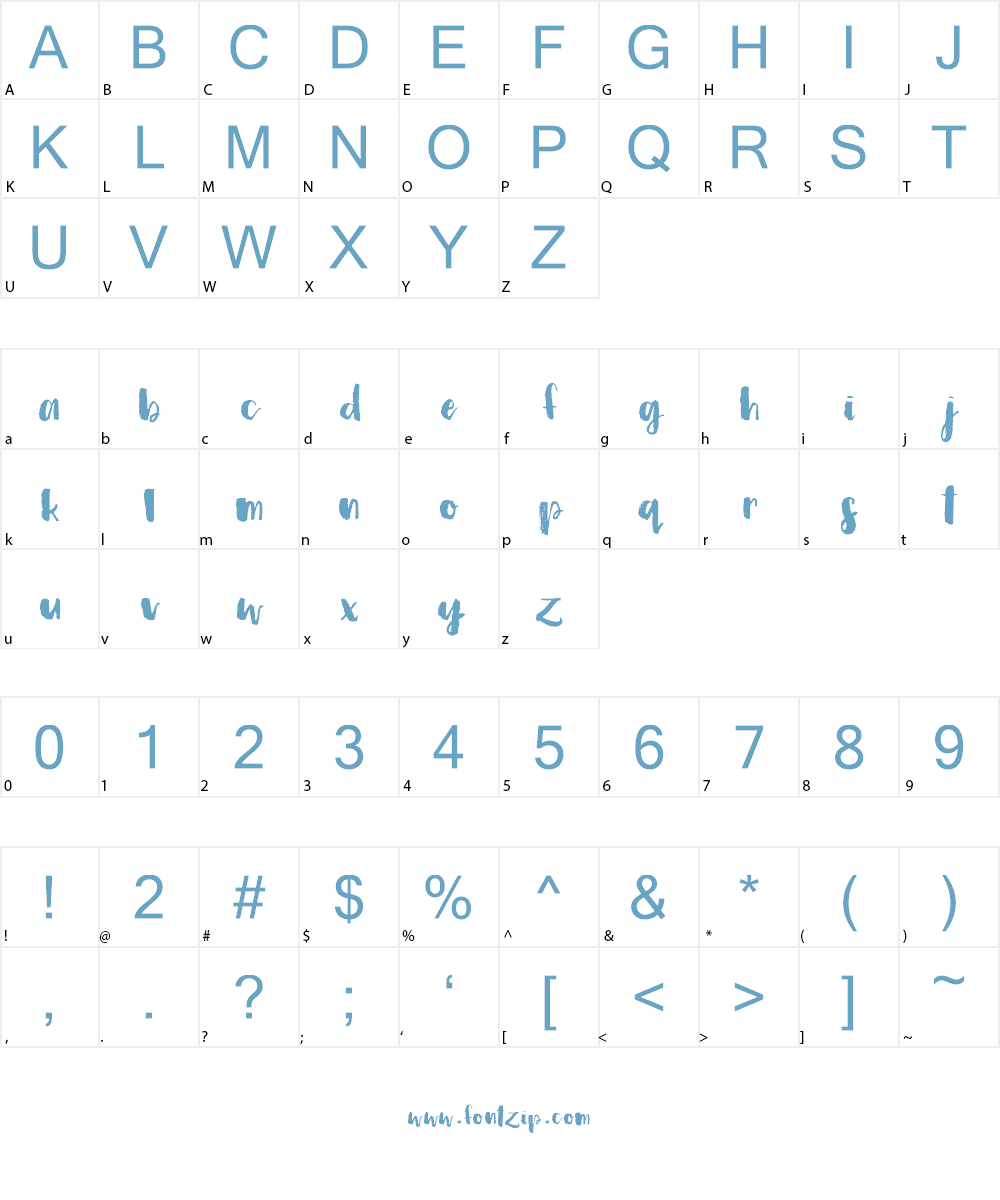
I am proud to offer this free dry brush script font. Originally drawn with a Pentel refillable art brush and carbon black ink.Please enjoy this free dry brush script. Lettered with a Pentel refillable brush pen, medium size, using carbon black ink.